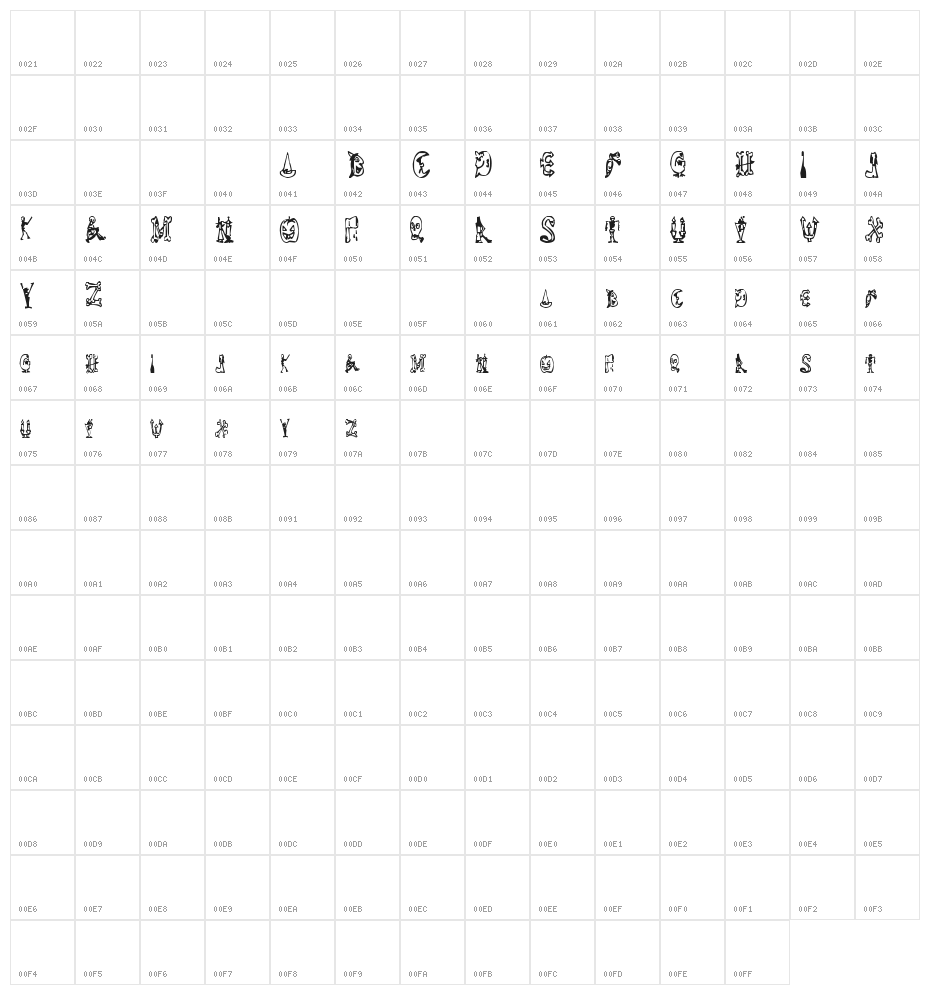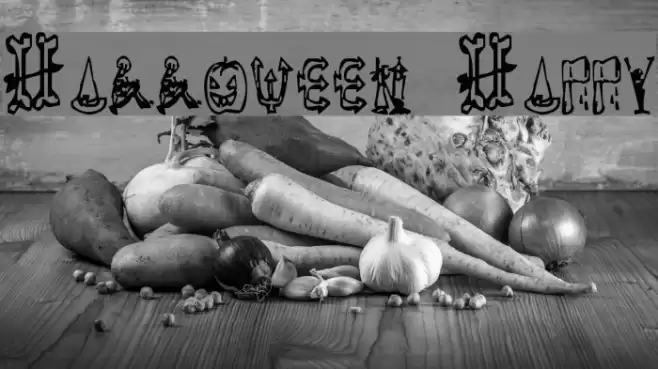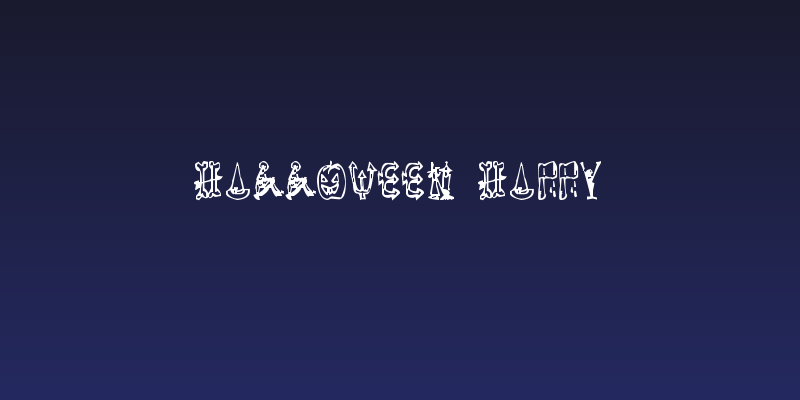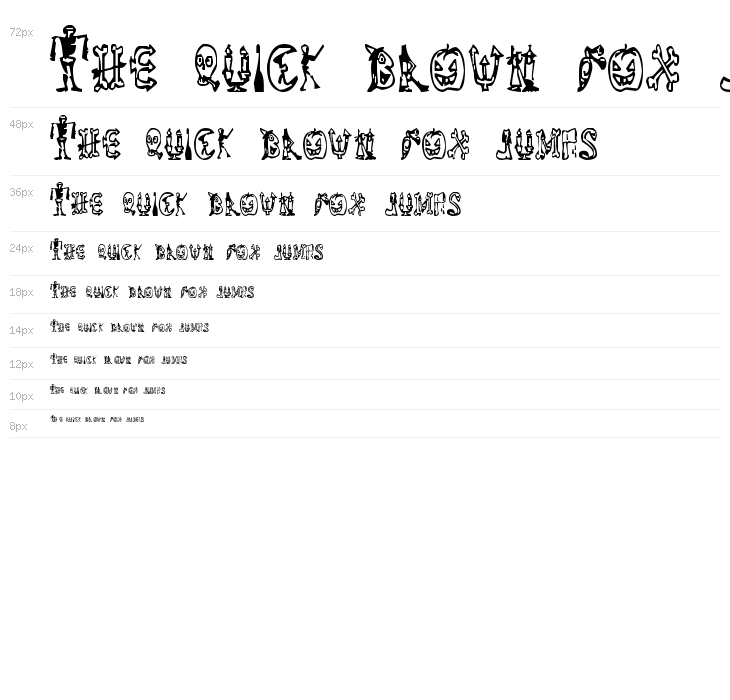
Halloween Happy Font
Halloween Happy Description
This font embodies a playful and spooky Halloween theme, incorporating elements like bats, bones, and pumpkins into the letterforms. Each character is uniquely designed with intricate details that evoke a sense of mystery and fun. The font features a decorative style with a whimsical touch, making it perfect for seasonal designs. The bold and irregular shapes contribute to its eye-catching appearance, while the creative use of Halloween motifs enhances its thematic appeal. The font's overall style is both festive and eerie, capturing the essence of Halloween in a visually engaging way.